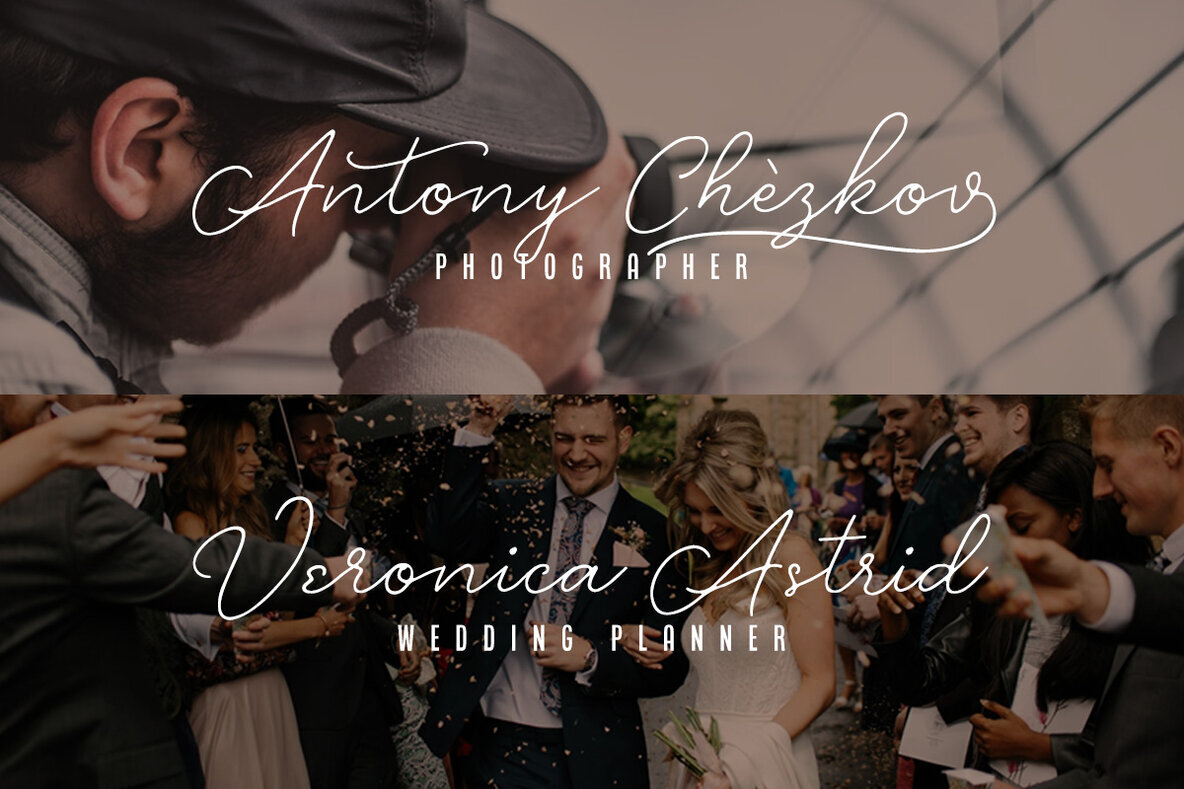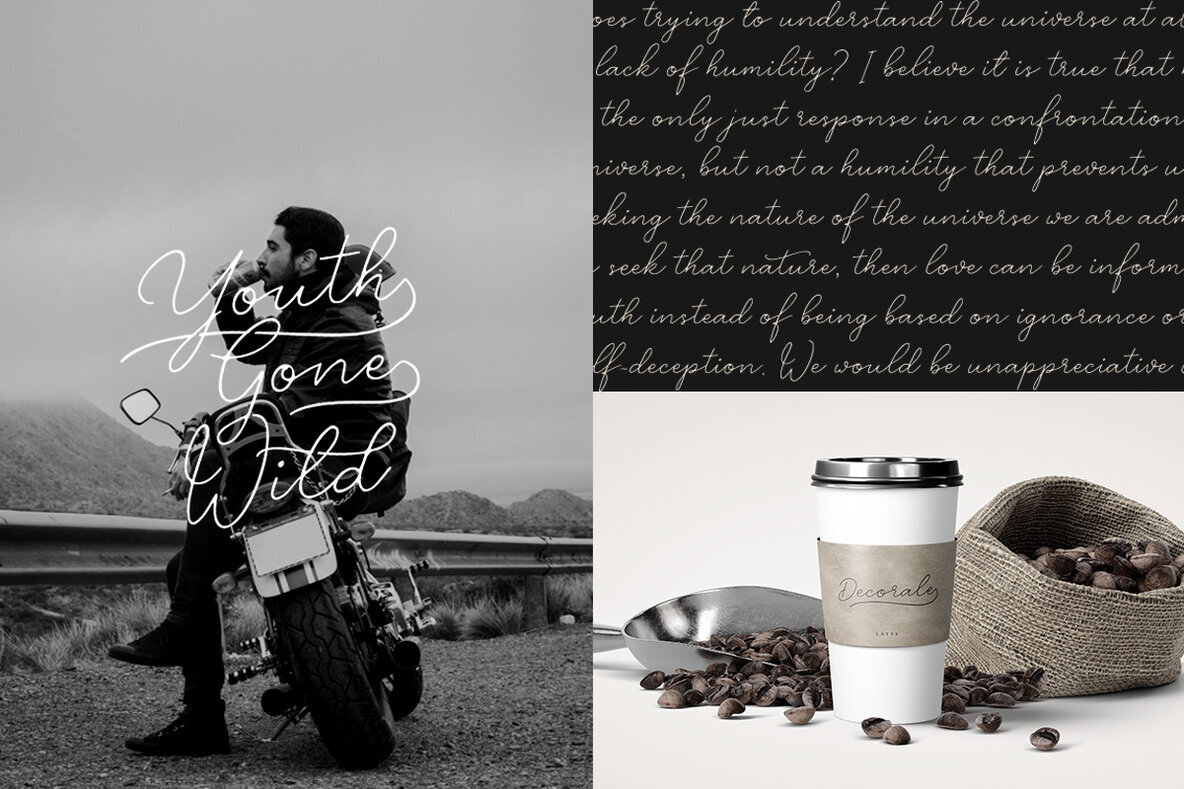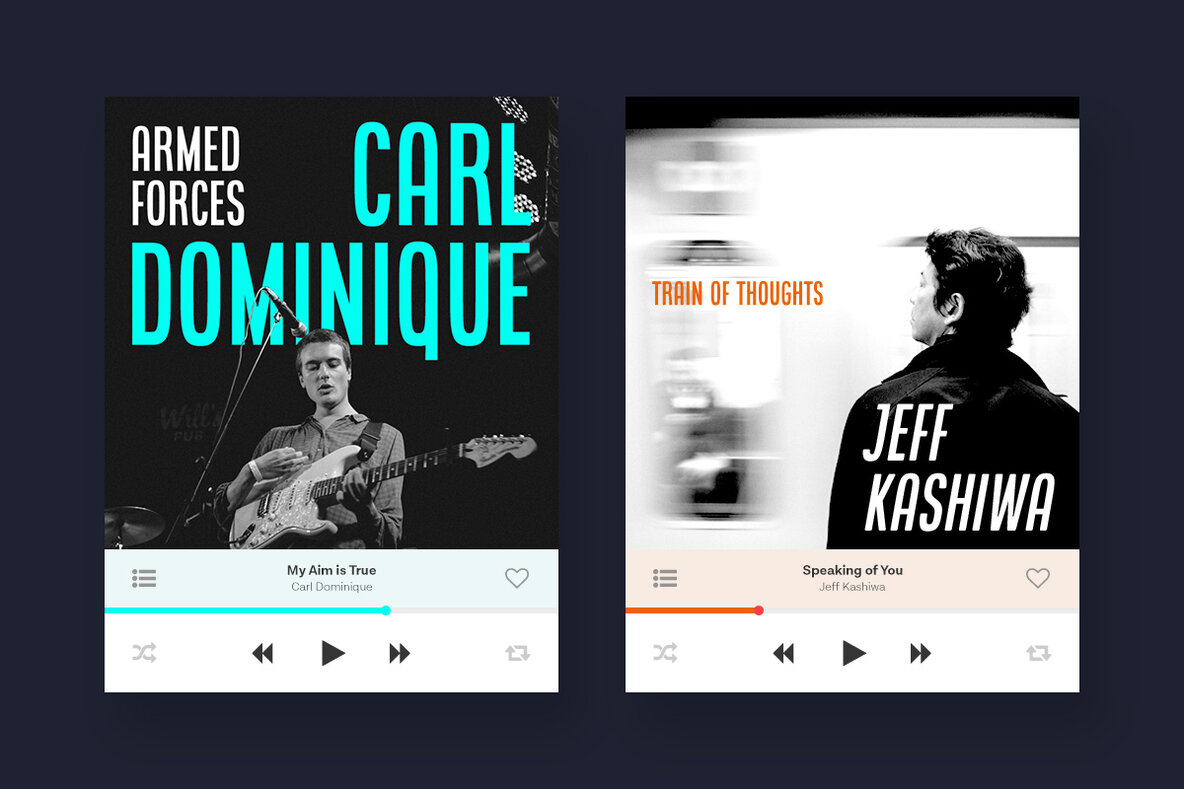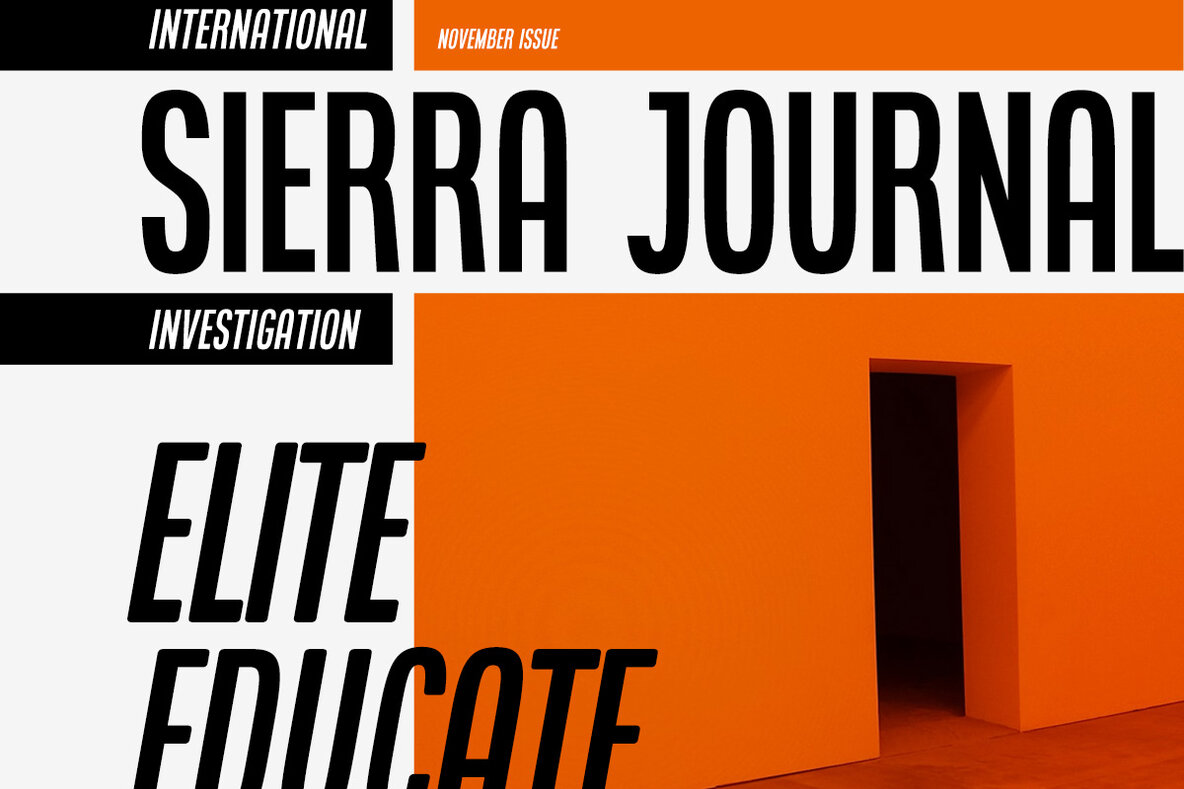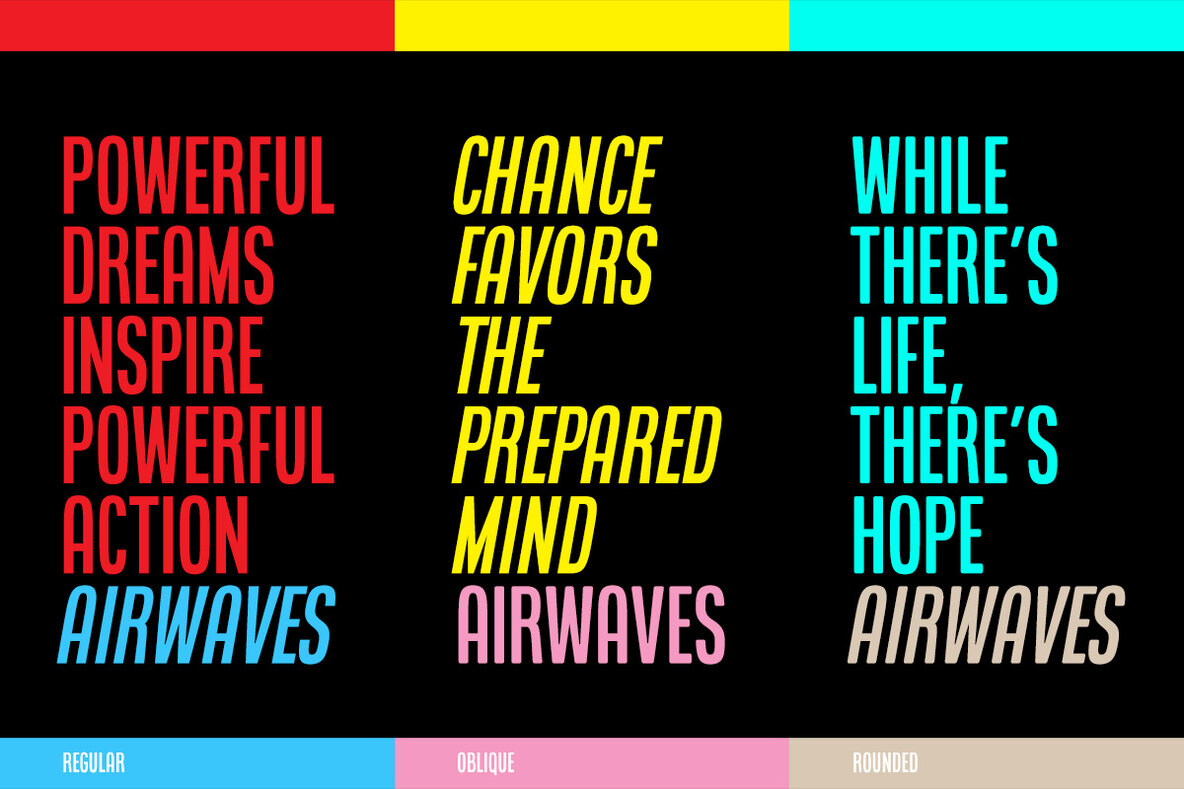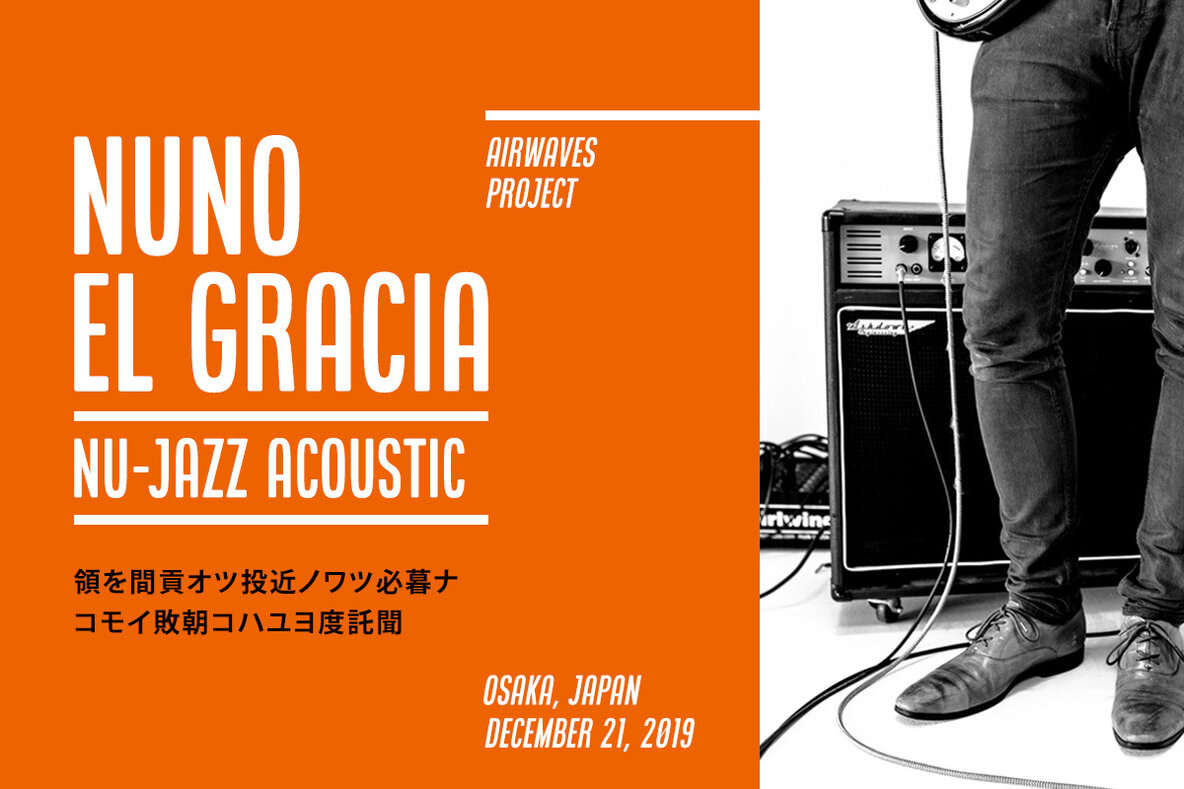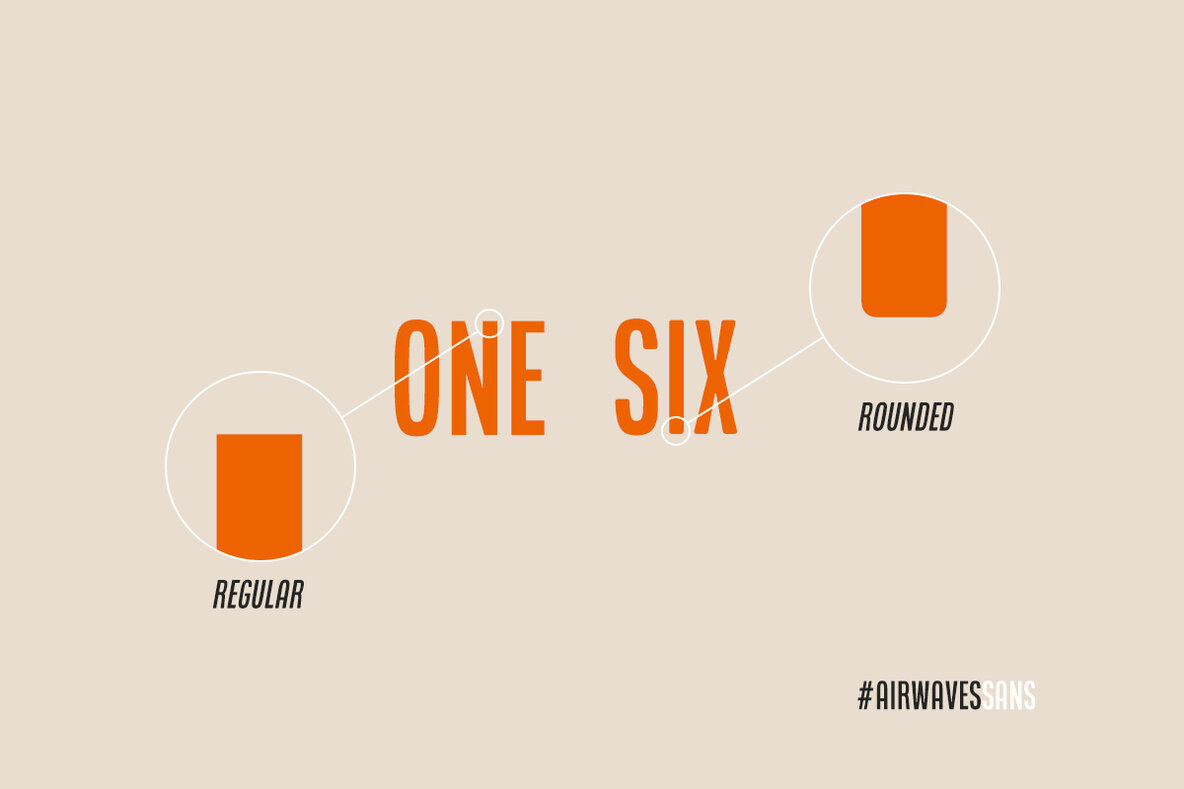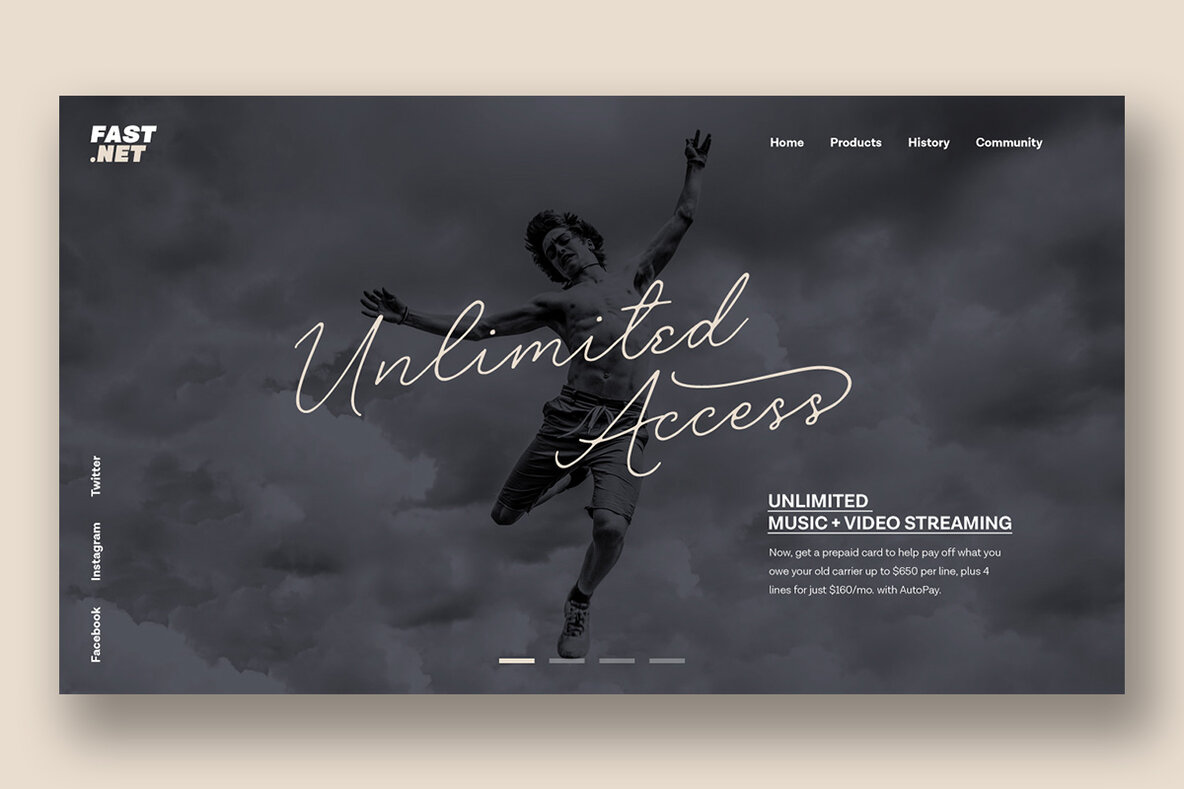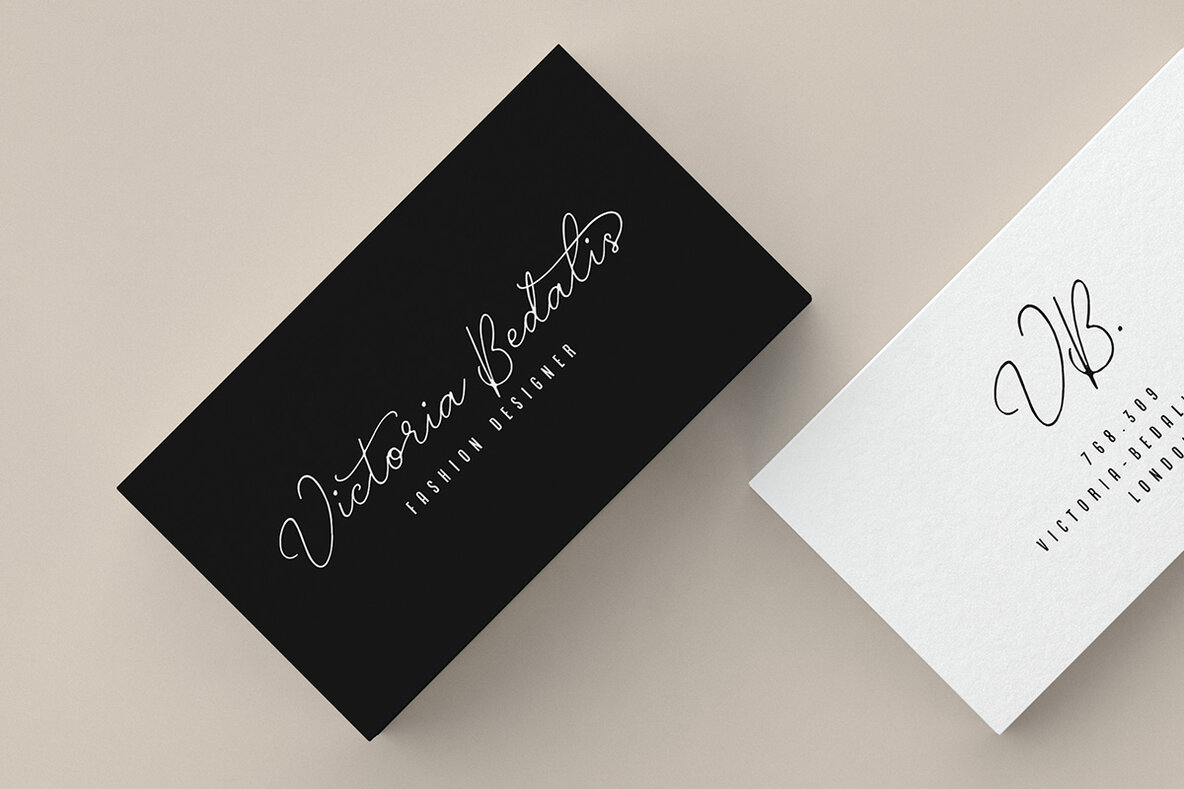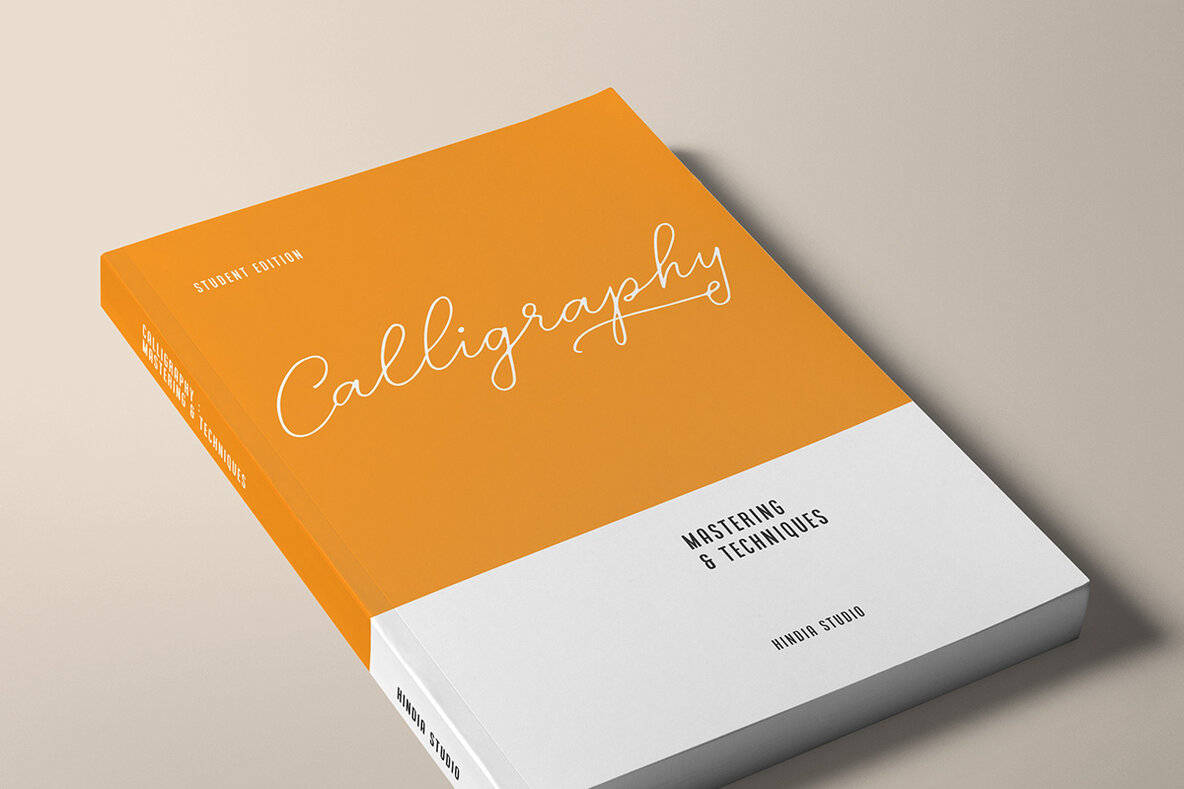
Airwaves Font
Airwaves is a stunning font duo that combines a condensed sans serif with a signature-style script, creating a supercool package. With a total of six styles, this versatile font duo is perfect for a variety of design projects. The condensed sans serif versions are bold and make strong statements, even in tight spaces. Complementing these is the sleek script, which adds a touch of elegance with its thin strokes and smooth flow. Airwaves brings together the best of both worlds: a solid condensed sans serif for bold statements and a cursive script for a more artistic touch. This combination offers designers a wealth of creative options, making it ideal for branding, advertising, and editorial work. Discover additional unique font duos like Airwaves at YouWorkForThem. Visit our Sans Serif Fonts and Script Fonts sections to find the perfect font combination for your design needs. Airwaves is more than a font; it's a creative toolkit. Enhance your projects with this versatile font duo, perfect for personal, commercial, and enterprise use.Airwaves: A Stylish Font Duo with Condensed Sans and Script
The Power of the Airwaves Font Duo
Key Features of Airwaves